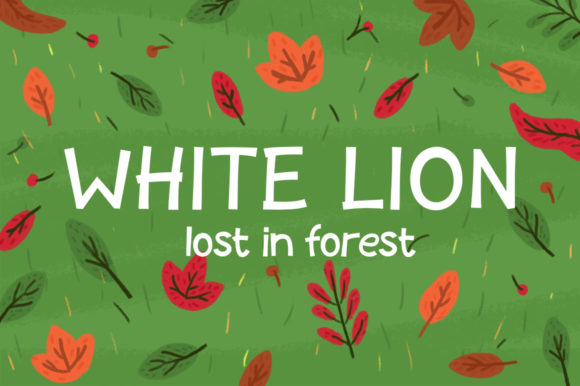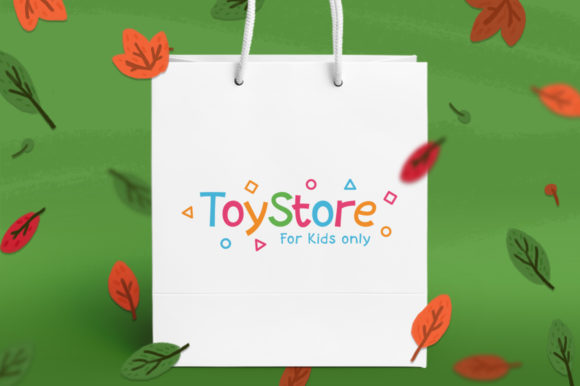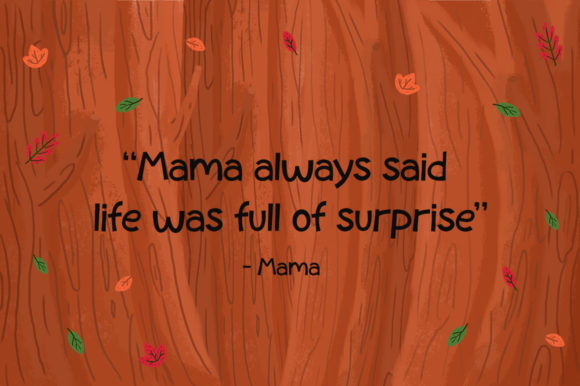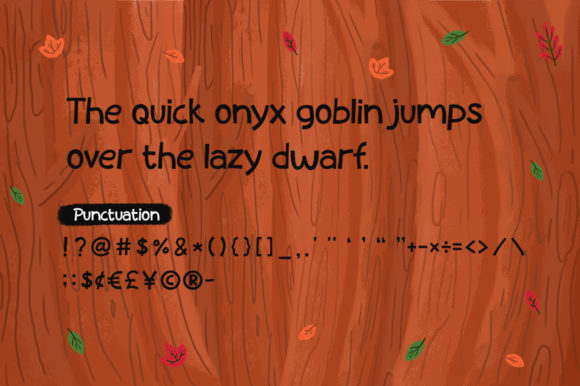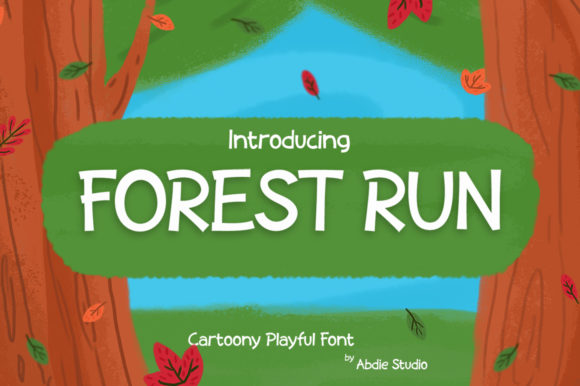
Discover the Charm of Forest Run Font: A Cute Handwritten Delight
Are you on the hunt for a font that adds a touch of whimsy and personality to your designs? Look no further than Forest Run Font, a delightful handwritten font that’s sure to capture your heart. With its quirky charm and versatility, Forest Run is the perfect addition to any design project, from crafting and DIY tutorials to branding and marketing materials.
The Story Behind Forest Run Font
Forest Run Font is a carefully crafted handwritten font that’s designed to bring a sense of playfulness and fun to your designs. Its creator, [designer name], drew inspiration from the natural world and the beauty of handwritten script to create a font that’s both unique and endearing. The result is a font that’s a little bit quirky, yet incredibly adept at adding a personal touch to a wide range of contexts.
What Makes Forest Run Font So Special?
So, what sets Forest Run Font apart from other fonts out there? Here are just a few of its standout features:
- Handwritten charm: Forest Run Font has a distinctly handwritten feel that’s perfect for adding a personal touch to your designs.
- Quirky and playful: With its unique letterforms and playful vibe, Forest Run Font is sure to add a dash of whimsy to your designs.
- Versatile: Whether you’re designing a logo, crafting a tutorial, or creating marketing materials, Forest Run Font is adaptable and easy to use.
- Cute and endearing: Let’s face it – Forest Run Font is just plain adorable! Its sweet, charming letterforms are sure to capture your heart.
Using Forest Run Font in Your Designs
One of the best things about Forest Run Font is its versatility. Here are just a few ideas for using this delightful font in your designs:
- Crafting and DIY tutorials: Add a personal touch to your crafting and DIY tutorials with Forest Run Font’s playful, handwritten charm.
- Branding and marketing materials: Use Forest Run Font to add a touch of whimsy and personality to your branding and marketing materials, from logos and business cards to social media graphics and advertisements.
- Stationery and invitations: Forest Run Font is perfect for creating custom stationery, invitations, and greeting cards that are sure to delight your friends and family.
- Digital products: Use Forest Run Font to add a personal touch to your digital products, such as ebooks, printables, and courses.
Tips for Getting the Most Out of Forest Run Font
To get the most out of Forest Run Font, here are a few tips to keep in mind:
- Experiment with different sizes and colors: Forest Run Font looks great in a variety of sizes and colors, so don’t be afraid to experiment and find the perfect combination for your design.
- Pair with other fonts: Forest Run Font pairs beautifully with other fonts, so try combining it with a bold or serif font to add contrast and interest to your design.
- Use it sparingly: While Forest Run Font is certainly a versatile font, it can be overwhelming if used too much. Try using it sparingly to add a touch of personality to your design.
In conclusion, Forest Run Font is a delightful handwritten font that’s sure to capture your heart. With its quirky charm, versatility, and adorable letterforms, it’s the perfect addition to any design project. Whether you’re a designer, crafter, or DIY enthusiast, Forest Run Font is a must-have font that’s sure to bring a touch of whimsy and personality to your designs.